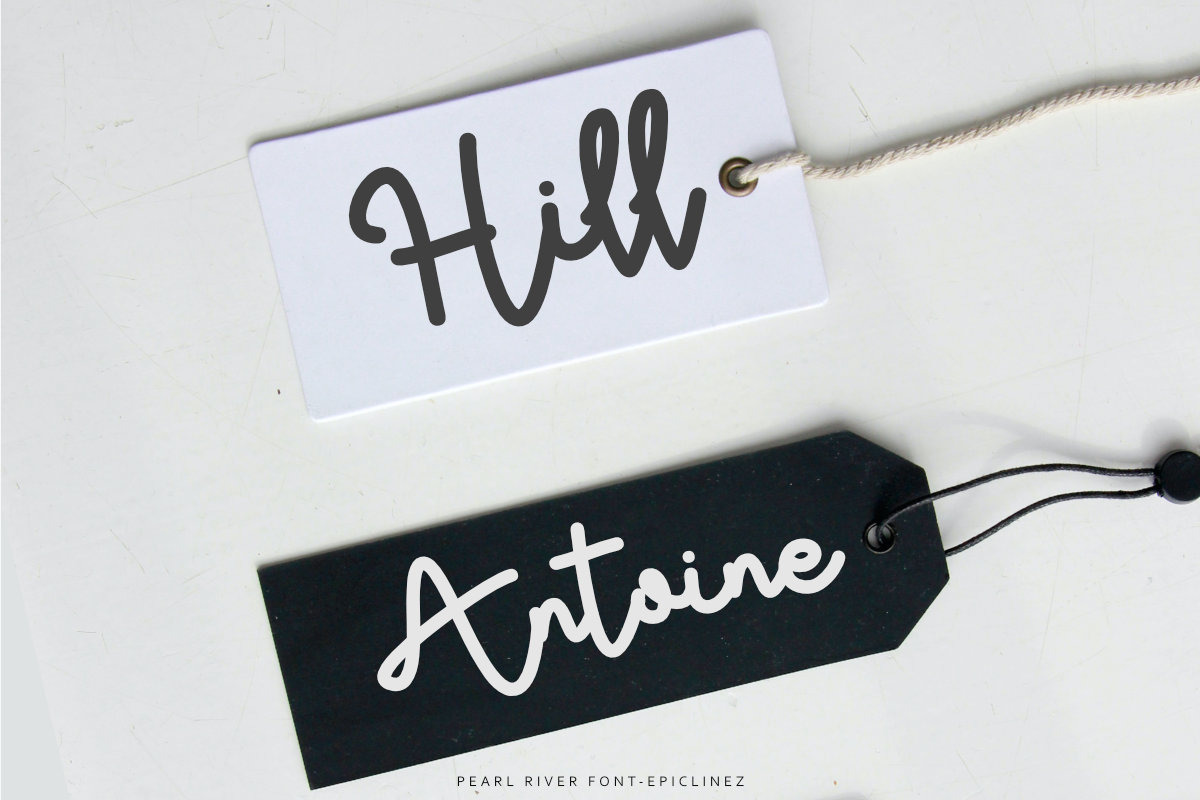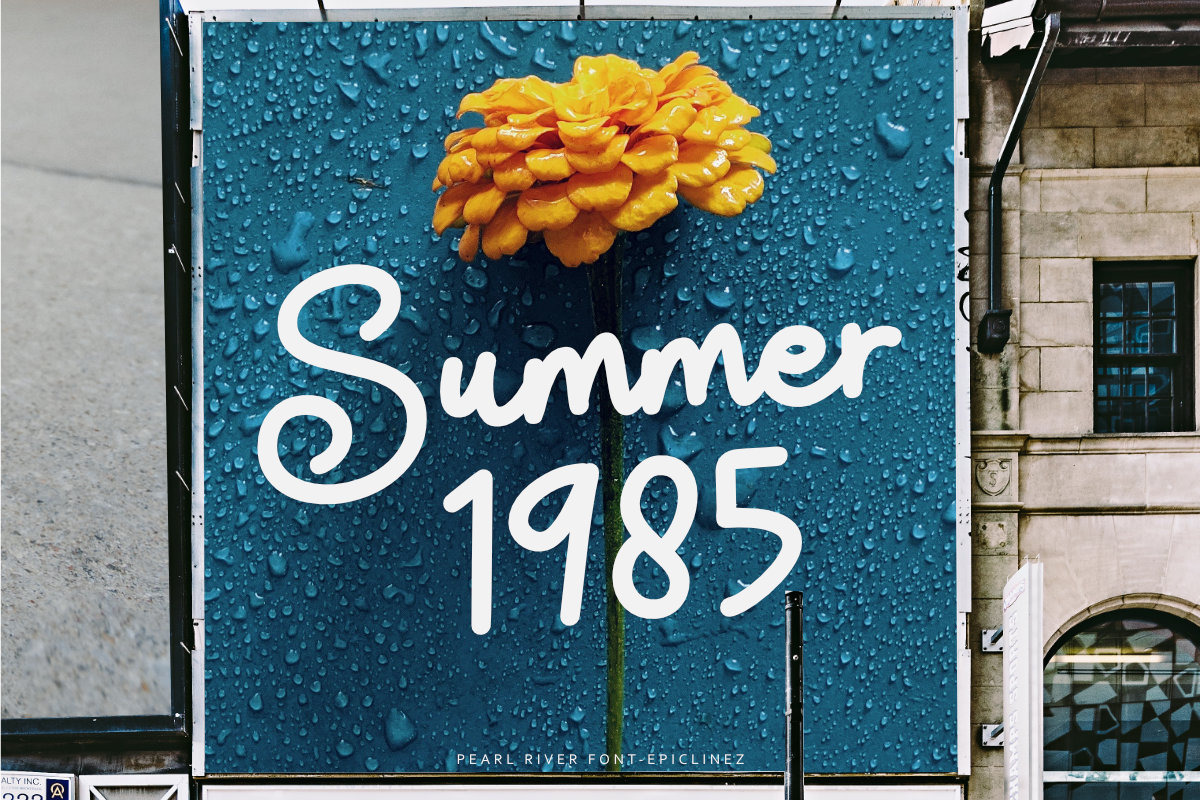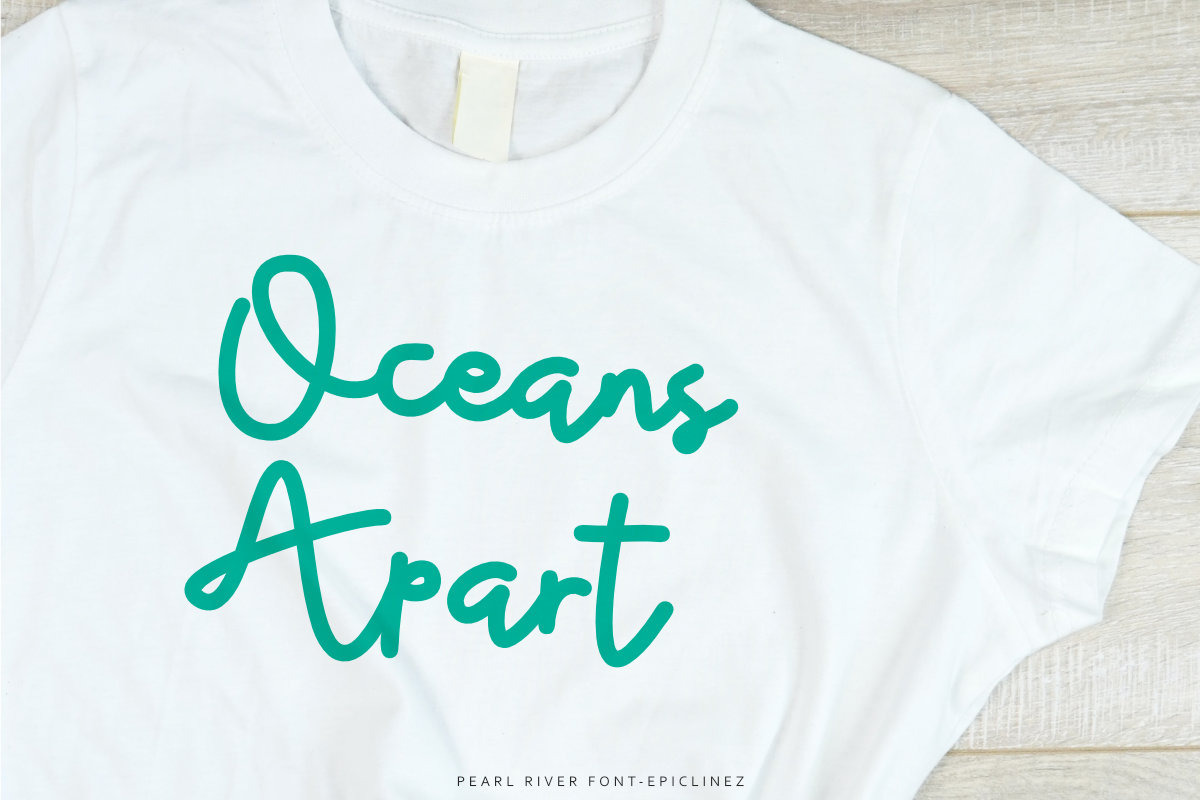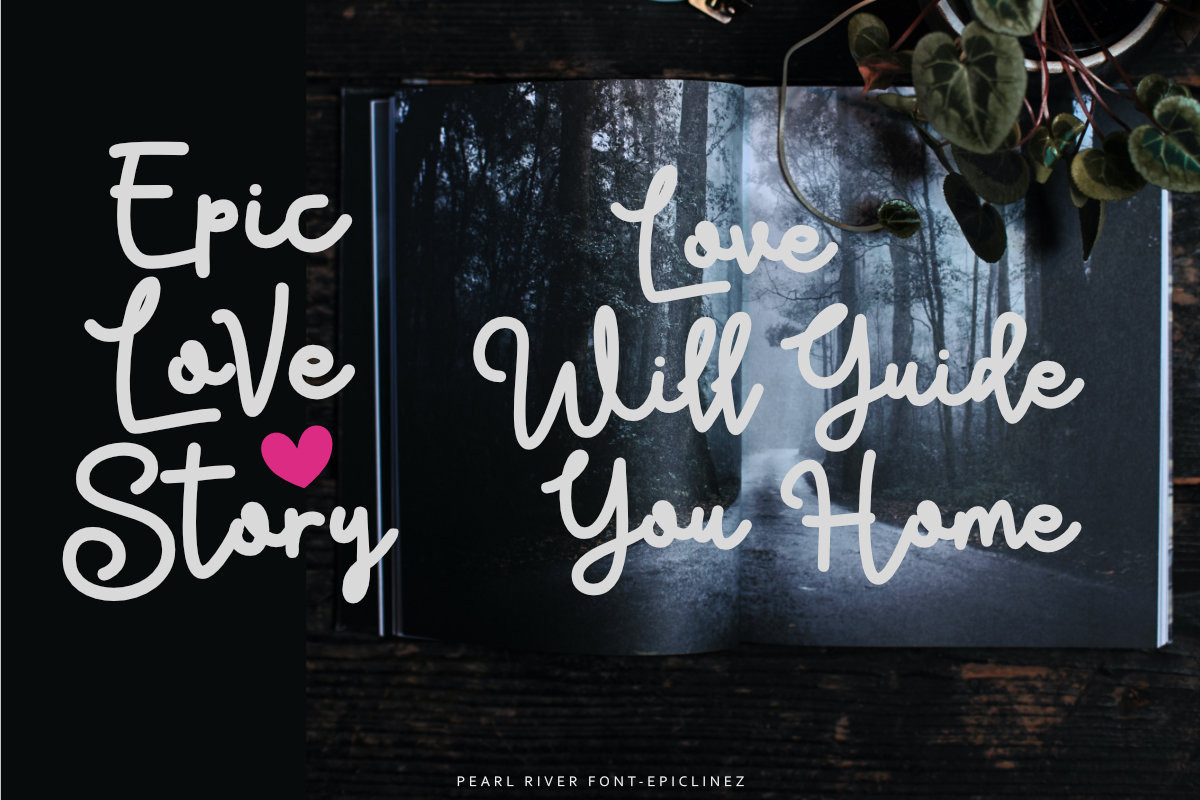
Pearl River
Pearl River is a bold and elegant script font. Whether you're designing a logo, or poster or working on crafting projects, Pearl River can take your creativity to a new height.
- Standard Latin A-Z, a-z, numbers, symbols, punctuations, and ligatures.
- Multilingual Support.
- Accented Characters : ÀÁÂÃÄÅÆÇÈÉÊËÌÍÎÏÑÒÓÔÕÖØŒŠÙÚÛÜŸÝŽàáâãäåæçèéêëìíîïñòóôõöøœšùúûüýÿžß